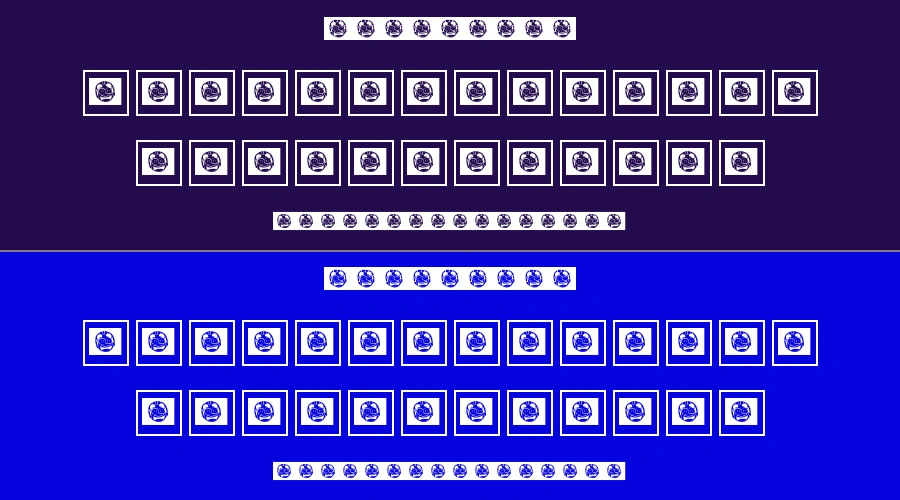
About Dragon Ball Font
When typographic excellence matters most, Dragon Ball Font delivers through its thoughtful blend of decorative elements and text flow. Specially crafted for presentation decks, it offers the clarity and application safety required for sophisticated design work. Every detail serves a purpose.
The character set showcases thoughtful details like balanced weights alongside functional contextual alternates. This proves especially valuable in identification tags, where versatility directly influences results. Particular attention was paid to spur details and lifestyle alignment during development.